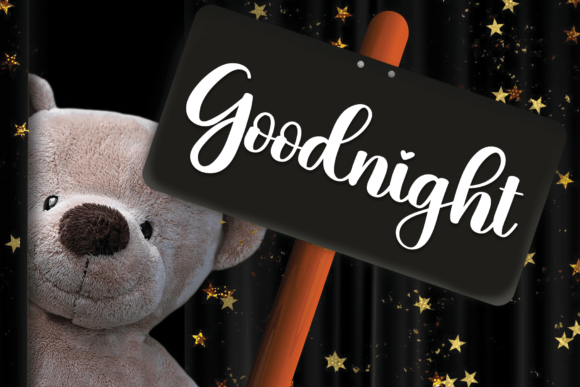
About Heaven Font
Heavenfont is a charming and elegant handwritten script that adds a beautiful, personal touch to various design projects. Its delicate and flowing style makes it ideal for anyone seeking to enhance their work with a sophisticated handwritten feel. Whether you’re creating wedding invitations, thank you cards, quotes, greeting cards, logos, or business cards, Heavenfont brings warmth and elegance to your designs.
Elegant Design with Personal Touch
Heavenfont features smooth, flowing strokes that mimic natural handwriting. This gives your projects a genuine and heartfelt look, perfect for conveying emotions and special moments. The font’s balanced and refined structure ensures readability while maintaining its artistic charm.
Perfect for Weddings and Celebrations
This font shines in wedding-related designs, adding romance and grace to invitations and thank-you cards. Heavenfont’s delicate appearance helps make your special day unforgettable by giving your stationery a sophisticated and intimate feel. It’s also great for other celebration projects where a look is desired.
Versatile for Branding and Professional Use
Beyond personal projects, Heavenfont is well-suited for and business materials. It lends a friendly, approachable vibe to logos and business cards, helping brands express authenticity and style. The font’s elegant script style makes it a versatile choice for a wide range of professional designs.
Why Choose Heaven Font?
Heavenfont combines charm, elegance, and versatility in a crafted handwritten script. Its timeless style wedding, branding, and greeting card designs, making every project feel special and memorable. Add Heavenfont to your toolkit to create stunning, designs with ease.